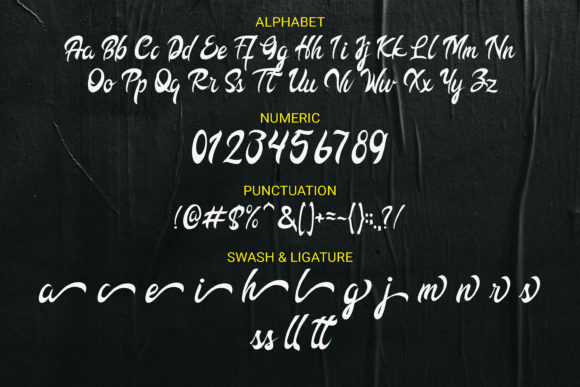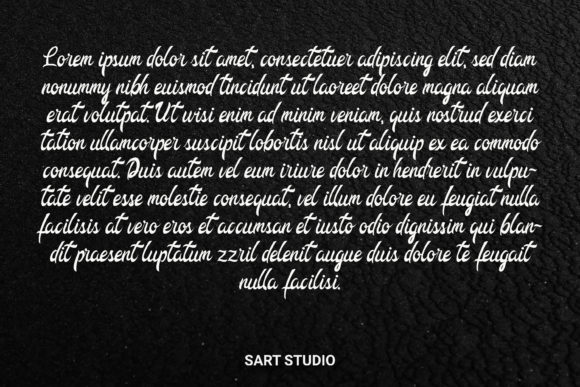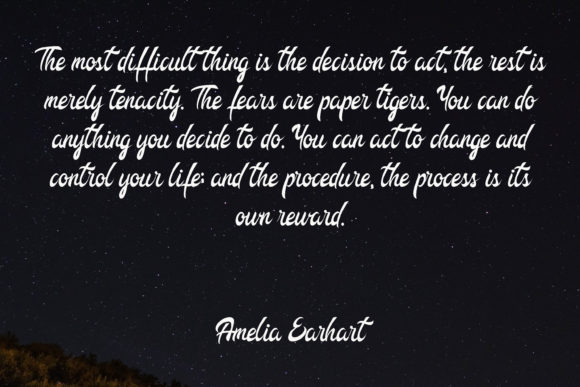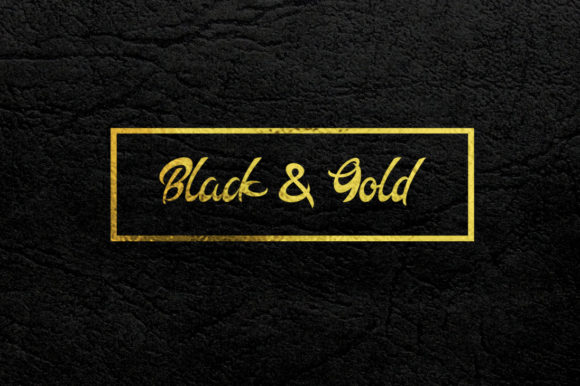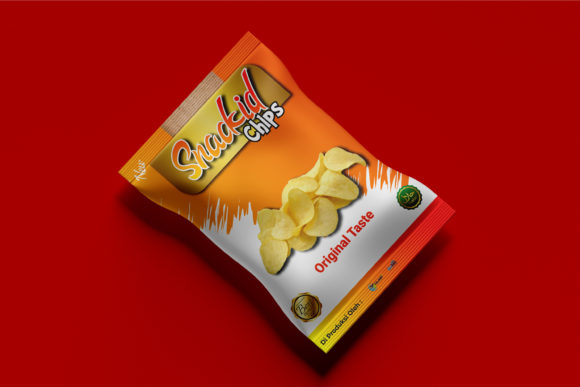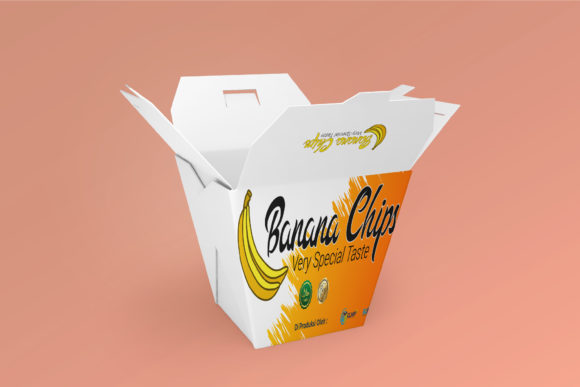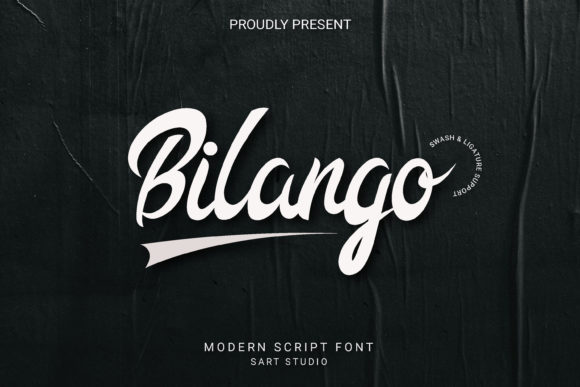
Bringing Life to Your Designs with Bilango Font
I’ll never forget the time I was working on a branding project for a trendy coffee shop. My client wanted a font that was modern, yet elegant, and would appeal to a young audience. I spent hours scouring through font libraries, but nothing seemed quite right. That was until I stumbled upon Bilango Font. With its trendy flow and modern script style, it was the perfect match. In this article, I’ll share my experience with Bilango Font, its features, and how to make the most of it in your designs.
A Personal Review of Bilango Font
As a designer, I’m always on the lookout for fonts that can elevate my work. Here’s my honest review of Bilango Font:
- ✨ Modern script style: Bilango Font has a fresh and contemporary feel that’s perfect for modern designs.
- ✅ Trendy flow: The font’s flow is smooth and elegant, making it ideal for headlines, titles, and short paragraphs.
- 💫 Versatility: Bilango Font can be used for a wide range of designs, from branding and advertising to packaging and digital media.
While Bilango Font is an excellent choice, there are a few things to keep in mind:
- ⚠️ Limited use in body text: Due to its script nature, Bilango Font may not be the best choice for long blocks of body text. It’s best used for headlines, titles, and short paragraphs.
- 🤔 Kerning issues: As with any font, kerning issues may arise when using Bilango Font. Make sure to adjust the kerning to ensure optimal readability.
The Story Behind Bilango Font
While the true story behind Bilango Font remains a mystery, it’s said to have been designed by a team of creatives who wanted to create a modern script font that would inspire designers to push the boundaries of typography. With its trendy flow and elegant style, Bilango Font has become a popular choice among designers.
Q: What is Bilango Font?
A: Bilango Font is a modern script font designed for creative projects. It has a trendy flow and elegant style, making it perfect for headlines, titles, and short paragraphs.
Q: Is Bilango Font suitable for body text?
A: While Bilango Font is an excellent choice for headlines and titles, it may not be the best choice for long blocks of body text. Its script nature can make it difficult to read in large quantities.